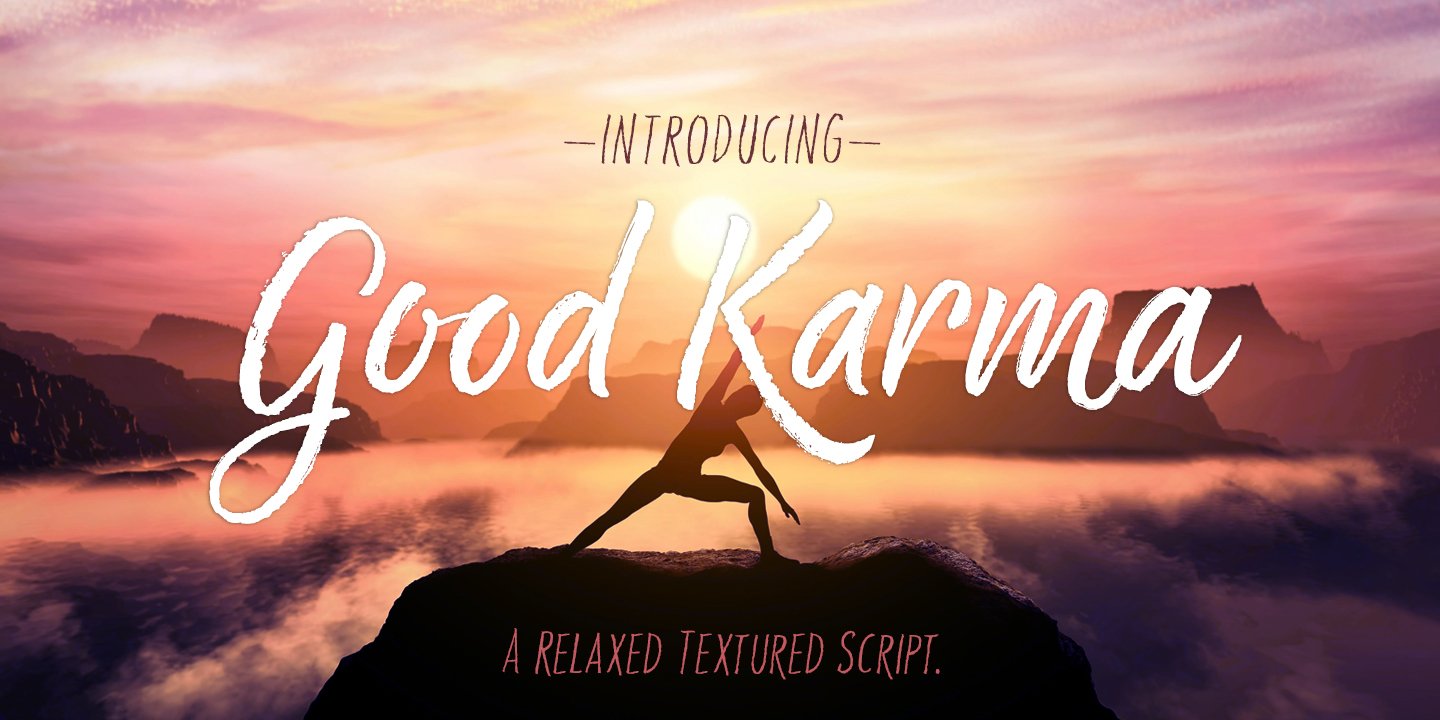
The Good Karma Font is perfect for wellness brand identities, yoga studio signage, meditation app interfaces, spiritual book covers, holistic health websites, mindfulness campaign materials, organic product packaging, and inspirational quote designs. This harmonious typeface excels in projects for wellness centers, spiritual retreats, natural health practitioners, meditation teachers, eco-friendly brands, and businesses promoting positive living, mindfulness, and personal growth.
What makes the Good Karma Font exciting is its perfect embodiment of peace, balance, and positive energy. The font features gentle, flowing letterforms with organic curves and harmonious proportions that create a sense of inner calm and spiritual connection. Its warm, approachable character and zen-like simplicity make it ideal for brands seeking to convey authenticity, wellness, and positive transformation. The font's natural elegance and mindful aesthetic inspire feelings of serenity, balance, and good fortune in every application.
The Good Karma Font family includes spiritually-inspired variations: Regular, Light, Bold, Script, Zen, and Meditation versions. Each style maintains the font's peaceful character while offering different levels of spiritual expression and design flexibility. The family also features mindfulness symbols, lotus ornaments, and wellness-themed decorative elements that enhance holistic design projects.
Whether you're developing wellness brand identities, creating mindfulness marketing materials, or designing spiritual promotional campaigns, the Good Karma Font Free Download provides the ultimate solution for projects requiring authentic wellness typography. This exceptional typeface brings genuine positive energy to design work, making it an essential resource for designers working in wellness, spirituality, and personal development industries.